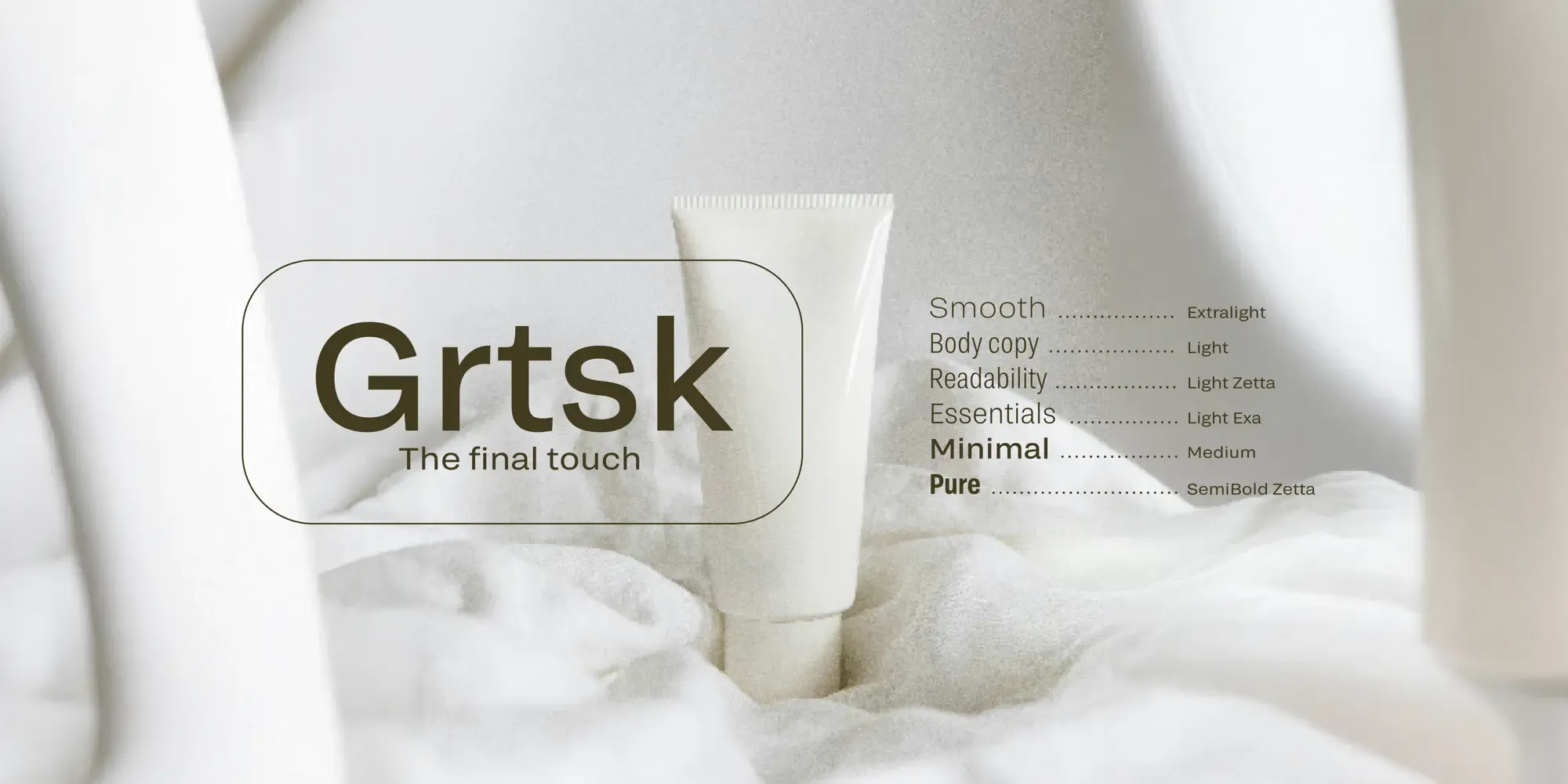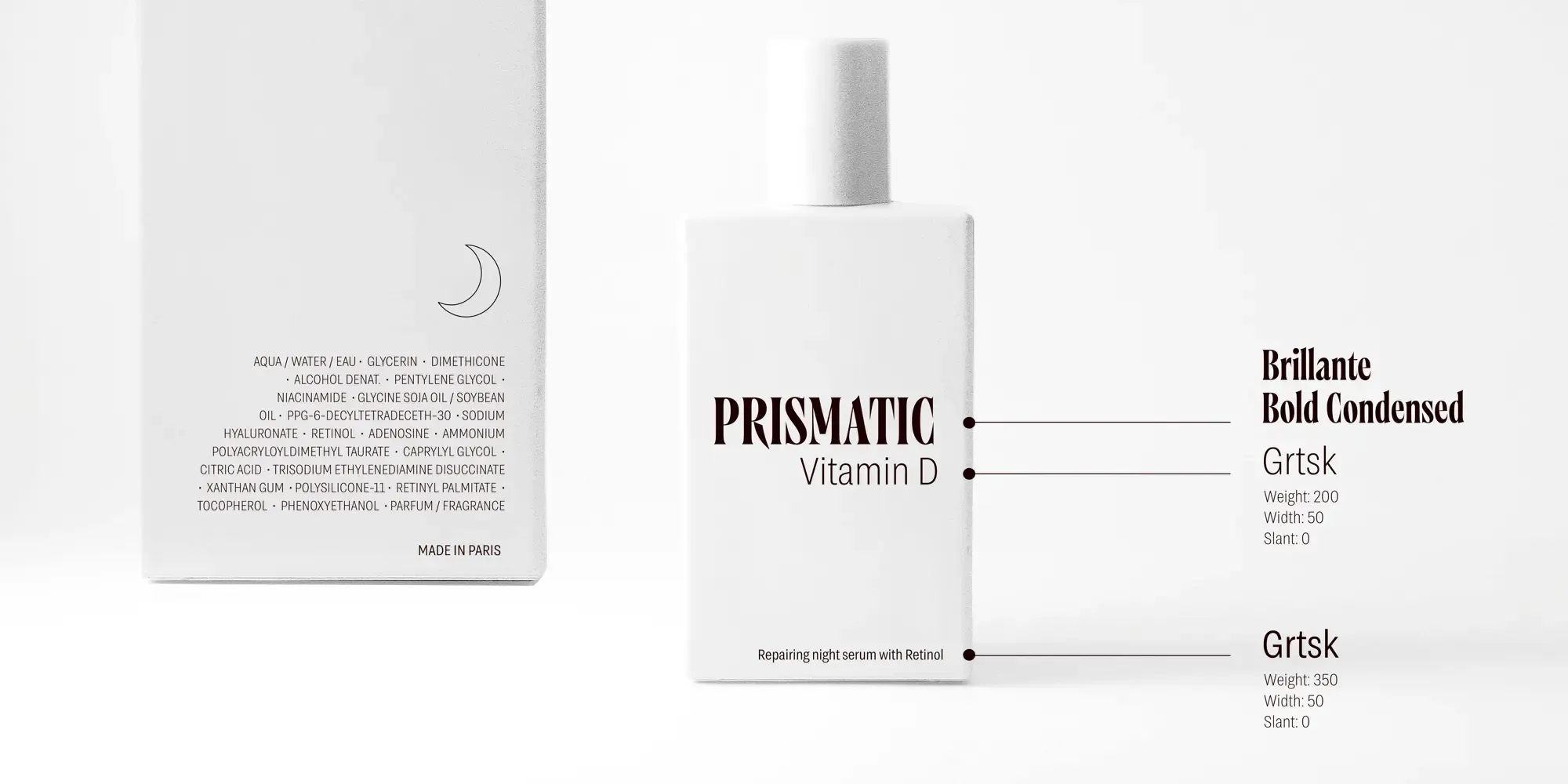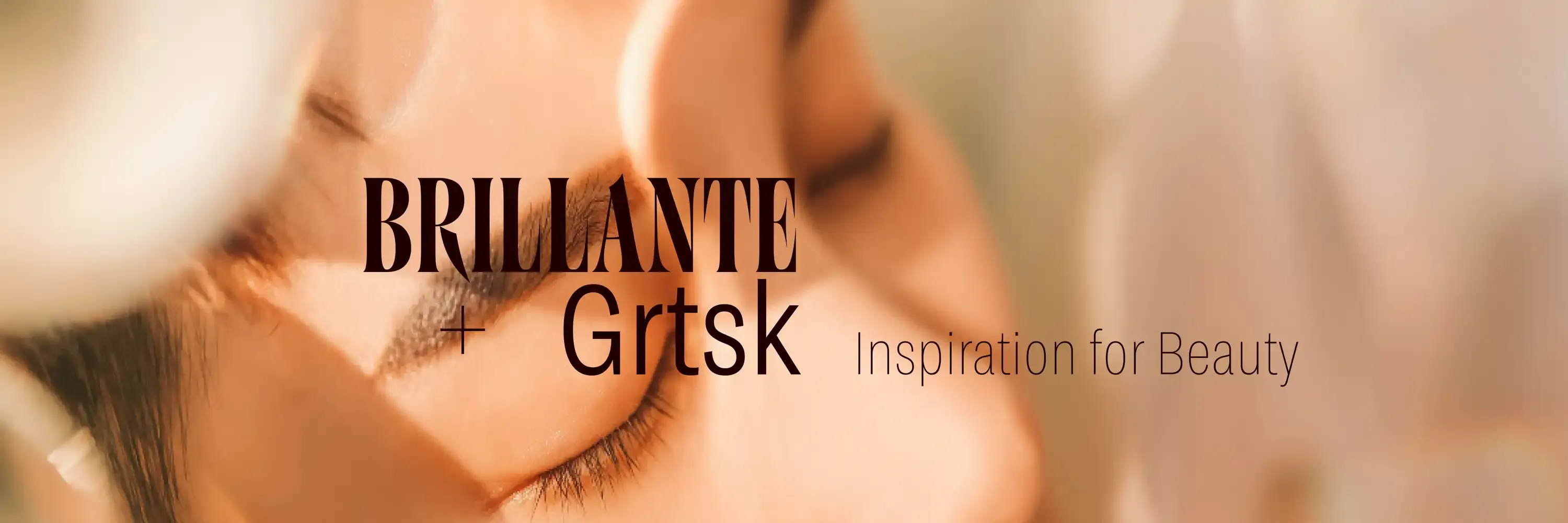
Brillante & Grtsk: Inspiration for Beauty
In the cutthroat world of cosmetics, beauty isn’t just skin deep—it’s ink deep, etched into every letter of your branding. Fonts are the unsung heroes of packaging design, telling your customers, “Yes, this lipstick will change your life,” before they even open the cap. Enter Brillante and Grtsk, a duo so iconic they could headline Paris Fashion Week.
Brillante: The Showstopper
Picture this: a bold, high-contrast typeface strutting down the page like it’s wearing Louboutins. That’s Brillante. With its razor-sharp serifs and unapologetic flair, it doesn’t just grab attention—it demands it. This is the font that whispers, “Luxury,” but in a way that makes everyone turn and look.
Brillante isn’t afraid to make a scene, and frankly, we love that about it.
• For the Spotlight: It’s perfect for logos, product names, and dramatic taglines like “Unleash Your Inner Goddess.” (Yes, it can handle the weight of that statement.)
• Timelessly Modern: Brillante is the Chanel of typefaces—classic yet contemporary, bold yet refined. It looks just as good on a shimmering eyeshadow palette as it does on a glossy magazine ad.
• Power & Poise: It’s the typography equivalent of a red carpet dress—every curve and edge screams elegance.
Grtsk: The Quiet Genius
While Brillante basks in the limelight, Grtsk works diligently in the background, making sure every detail is impeccable. It’s clean, modern, and versatile—a font that says, “I may not be glamorous, but I get the job done beautifully.”
Here’s why Grtsk is the Robin to Brillante’s Batman:
• Condensed Brilliance: When you’ve got 47 ingredients to list on a lipstick tube the size of a thumb, Grtsk’s condensed axis steps in like a pro. Small print? No problem.
• Wide Appeal: Need a wider axis for a standout product description? Grtsk’s got you. It’s flexible like yoga, but for letters.
• Legibility Meets Chic: Whether it’s on your product’s legal disclaimers or Instagram captions, Grtsk ensures your brand always looks polished, never plain.
A Match Made in Font Heaven
Together, Brillante and Grtsk are the ultimate power couple. Think Beyoncé and Jay-Z, but for cosmetics branding.
• Balance & Contrast: Brillante turns heads with its dramatic flair, while Grtsk provides stability and clarity. It’s the perfect yin and yang for your brand.
• Luxury Meets Functionality: These two fonts work together to create an aesthetic that’s equal parts glam and grounded. Your packaging will scream “exclusive” without sacrificing practicality.
• Visual Storytelling: Whether it’s a glossy lipstick ad or the fine print on a skincare bottle, this duo creates a seamless narrative that feels as luxurious as it looks.
The Packaging Glow-Up You Deserve
Brillante and Grtsk aren’t just fonts; they’re your brand’s new best friends. They’ll elevate your packaging, make your ads unmissable, and ensure your customers never forget your name. With Brillante’s dazzling confidence and Grtsk’s understated charm, your cosmetics line will be the epitome of style and substance.
Because in beauty branding, it’s not just about looking good—it’s about looking unforgettable. So go ahead, make your packaging sparkle, and let Brillante and Grtsk do the talking.